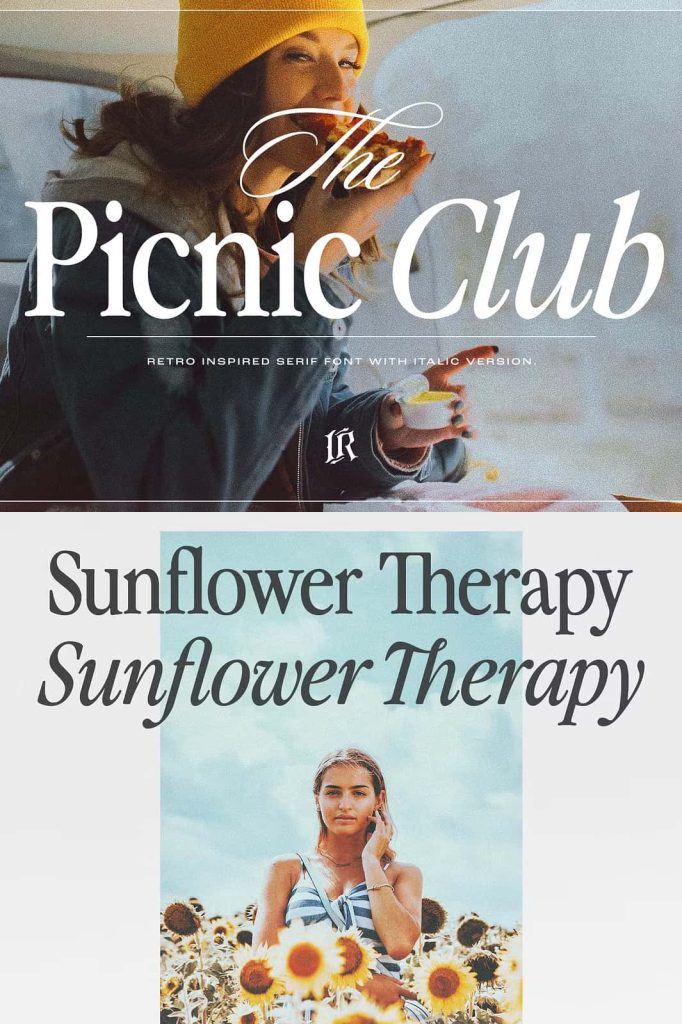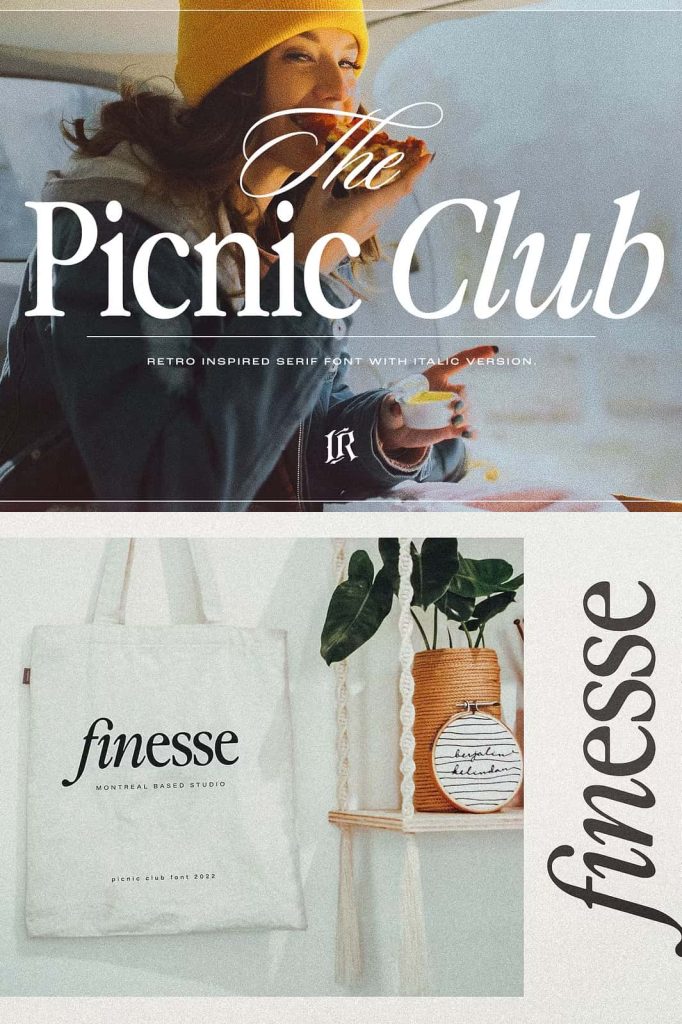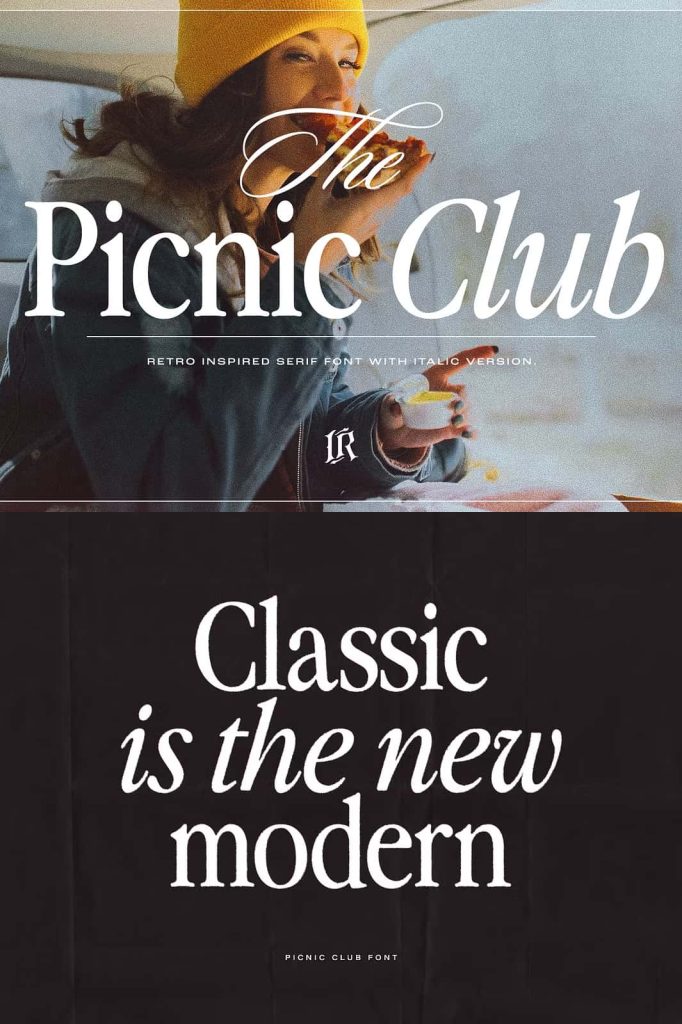
The Picnic Club – Nostalgic Serif Font
The Picnic Club – Nostalgic Serif is a stylish vintage serif font that captures the expressive spirit of the 1980s while embracing modern typographic clarity. Inspired by the groovy design culture of the era, this font delivers warmth, personality, and visual confidence. It blends retro charm with contemporary refinement, making it a powerful choice for designers who want to create designs that feel both nostalgic and relevant.
Inspired by the Groovy 80s with a Modern Twist
The Picnic Club – Nostalgic Serif draws its core inspiration from the bold and playful typography of the 80s. During this era, typefaces carried strong character, smooth curves, and confident serifs that demanded attention. This font embraces those qualities while refining them for modern use. The result is a vintage serif font that feels expressive without looking dated.
By combining retro influences with modern proportions and spacing, The Picnic Club maintains visual harmony across different layouts. The font delivers a nostalgic tone while ensuring clean readability and professional polish. This balance allows designers to achieve a timeless aesthetic that resonates with contemporary audiences.
Strong Display Presence with Excellent Readability
The Picnic Club – Nostalgic Serif truly shines at display sizes. Its bold letterforms, smooth curves, and distinctive serifs create eye-catching headlines that immediately draw attention. Whether used for posters, branding, packaging, or editorial headlines, the font delivers strong visual impact and memorable character.
Despite its expressive design, the font remains highly readable even at smaller text sizes. Careful attention to stroke weight, spacing, and structure ensures that characters stay clear and legible across different resolutions and mediums. This makes The Picnic Club a versatile serif font that works well beyond large headlines.
Designed for Headlines, Branding, and Editorial Layouts
As a display serif font, The Picnic Club is an excellent choice for headlines and titles that need to stand out. It helps designers establish hierarchy and guide the viewer’s attention through layouts with confidence. Its vintage-inspired personality adds emotional depth to design projects, making content feel engaging and authentic.
In branding projects, The Picnic Club – Nostalgic Serif supports strong visual identities. Logos, product labels, and promotional materials benefit from its unique character and nostalgic tone. The font communicates creativity, warmth, and trust, making it suitable for lifestyle brands, creative studios, cafes, fashion labels, and cultural projects.
Reliable Performance at Text Sizes
Unlike many decorative fonts, The Picnic Club maintains readability at text sizes. This makes it suitable for short paragraphs, taglines, pull quotes, and supporting content. Designers can confidently use it across multiple typographic levels without sacrificing clarity or consistency.
This flexibility allows for cohesive design systems where one font family supports both expressive and functional roles. The Picnic Club helps unify visual language while reducing the need for excessive font pairing.
A Versatile Vintage Serif for Modern Designers
The Picnic Club – Nostalgic Serif offers designers the freedom to work across different platforms and formats. It performs well in both print and digital environments, maintaining its character on screens, packaging, magazines, websites, and social media graphics. Its adaptable nature makes it a valuable asset for long-term branding and creative projects.
By choosing The Picnic Club – Nostalgic Serif, designers gain access to a vintage serif font that delivers style, readability, and versatility. It transforms ordinary text into expressive visual communication while preserving modern usability. This font empowers designers to tell stories with personality, evoke nostalgia, and create designs that feel intentional, memorable, and timeless.